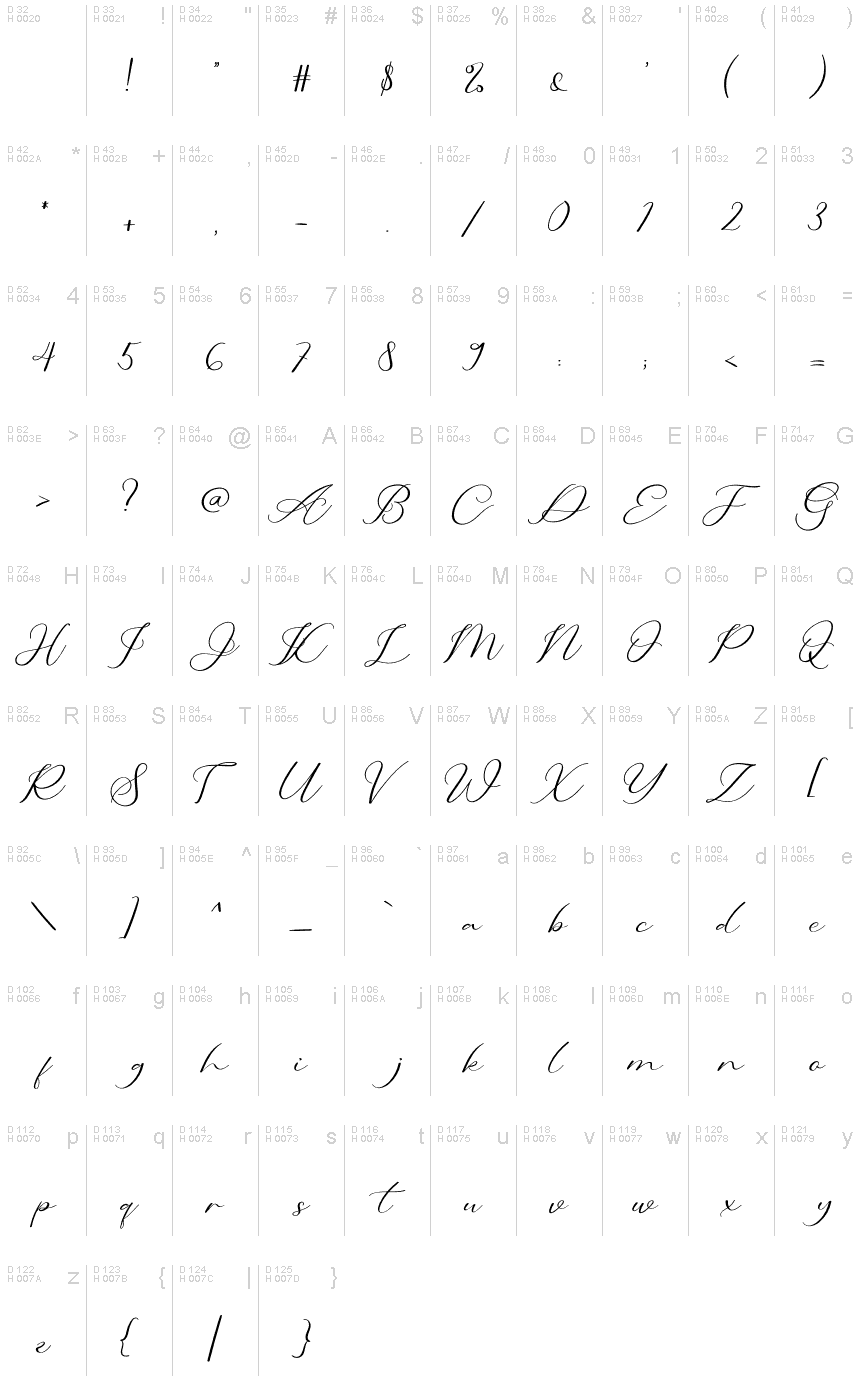
Wintersnow
Wintersnow, designed by Behind the Ink, is an exquisite calligraphy font that exudes a touch of romance. With its delicate strokes and graceful curves, this light-weight typeface adds an air of elegance to any project. Perfect for wedding invitations, love letters, or heartfelt quotes, Wintersnow brings a sense of enchantment to your designs. Its versatility also makes it suitable for fashion magazines, feminine branding materials, and even whimsical logos. Allow Wintersnow to transport your audience into a world of beauty and love with its captivating calligraphic style.